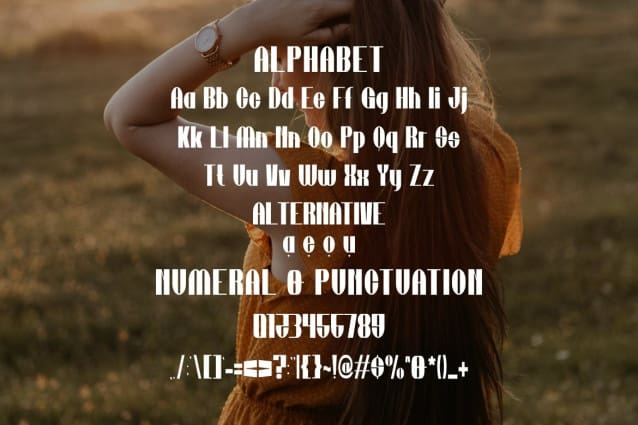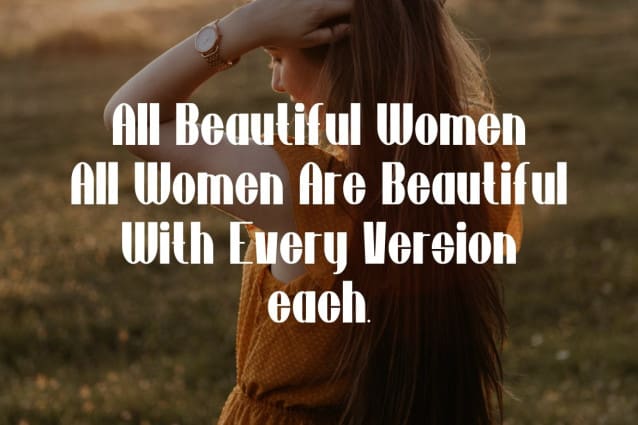
Bekaf Font
Bekaf Font is a modern and simple font, best used as a display for headings, logos, branding, magazines, product packaging and invitations. Bekaf come with clean lines and smooth curves give any project an extra touch of class.